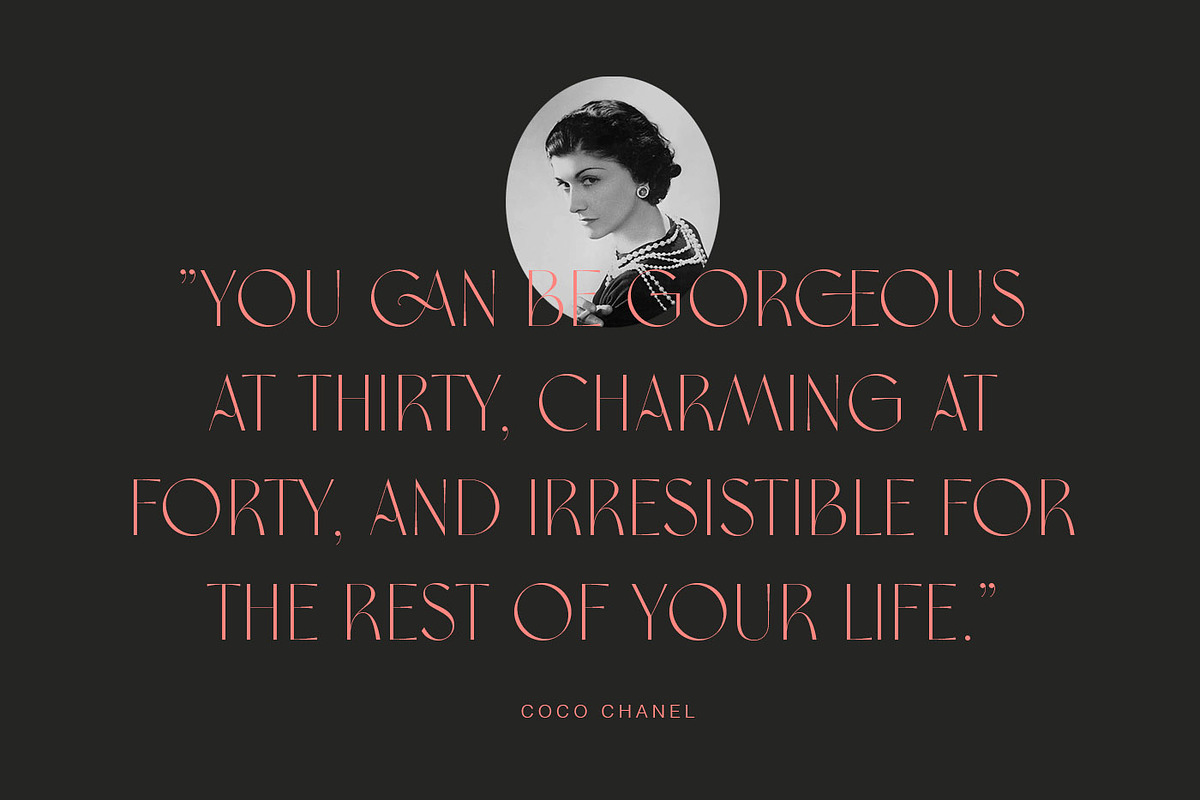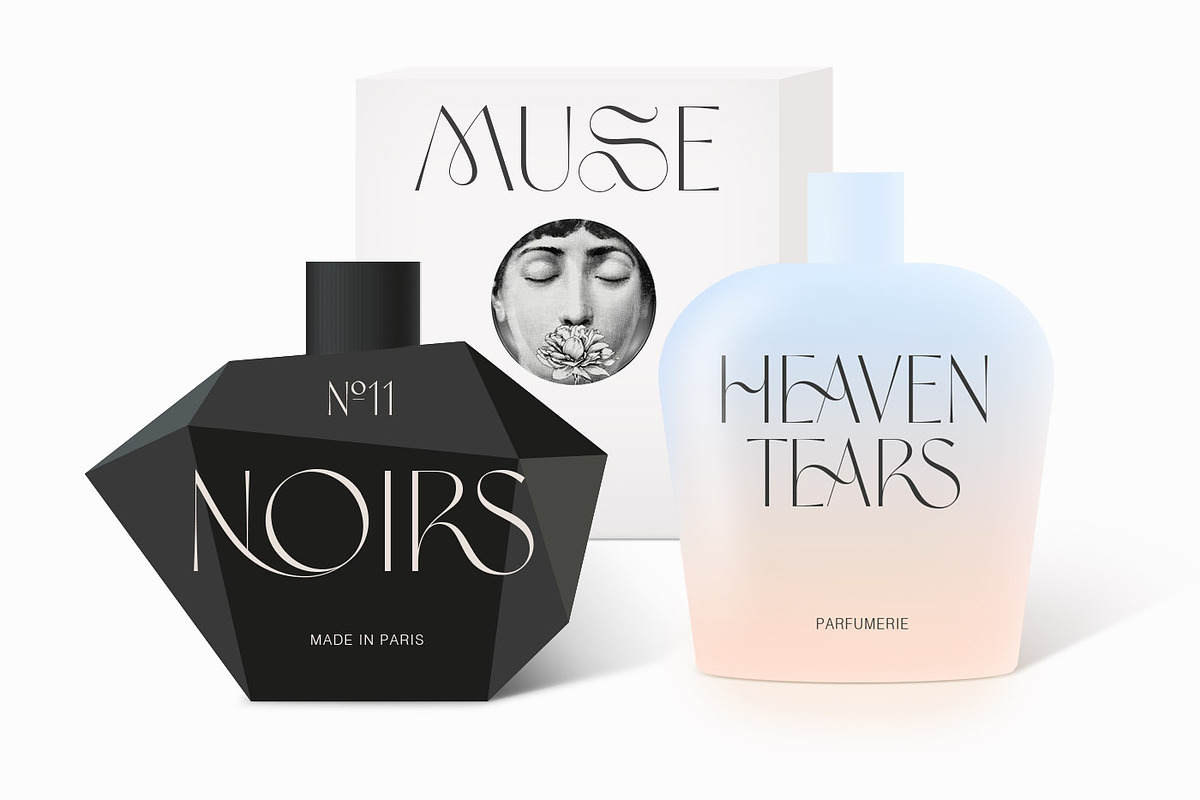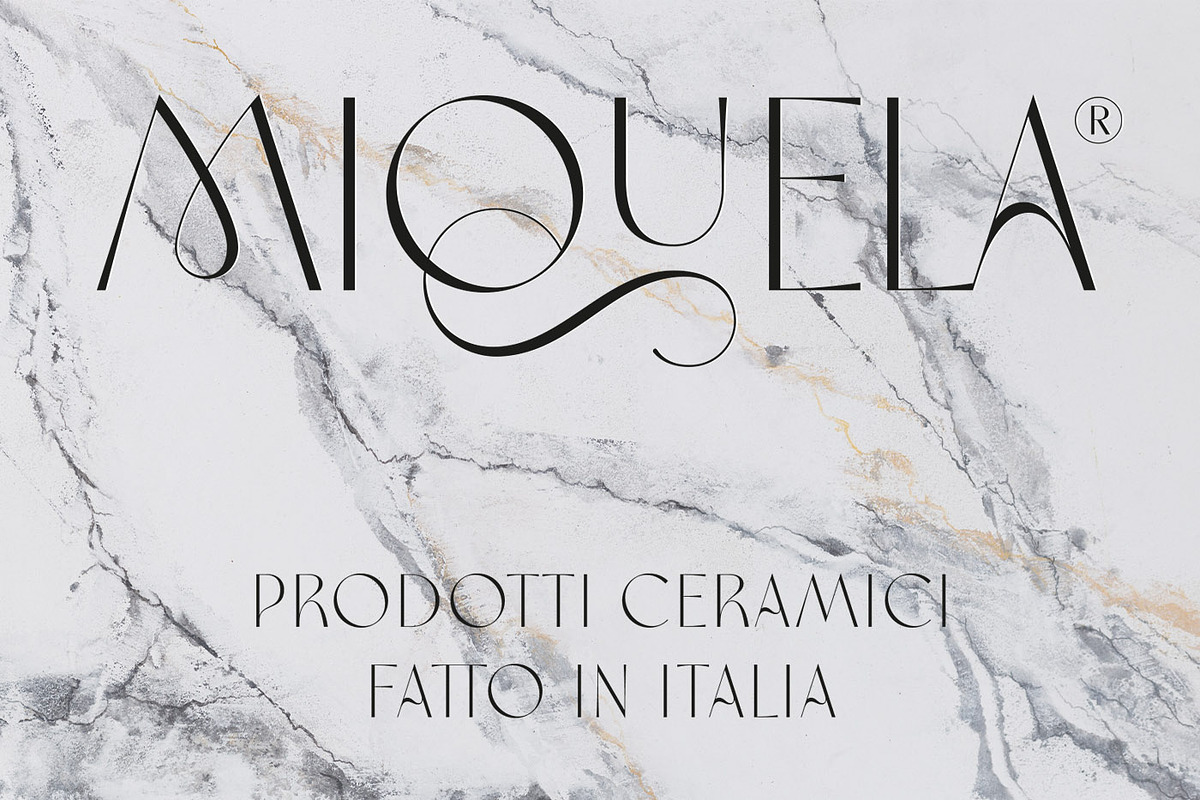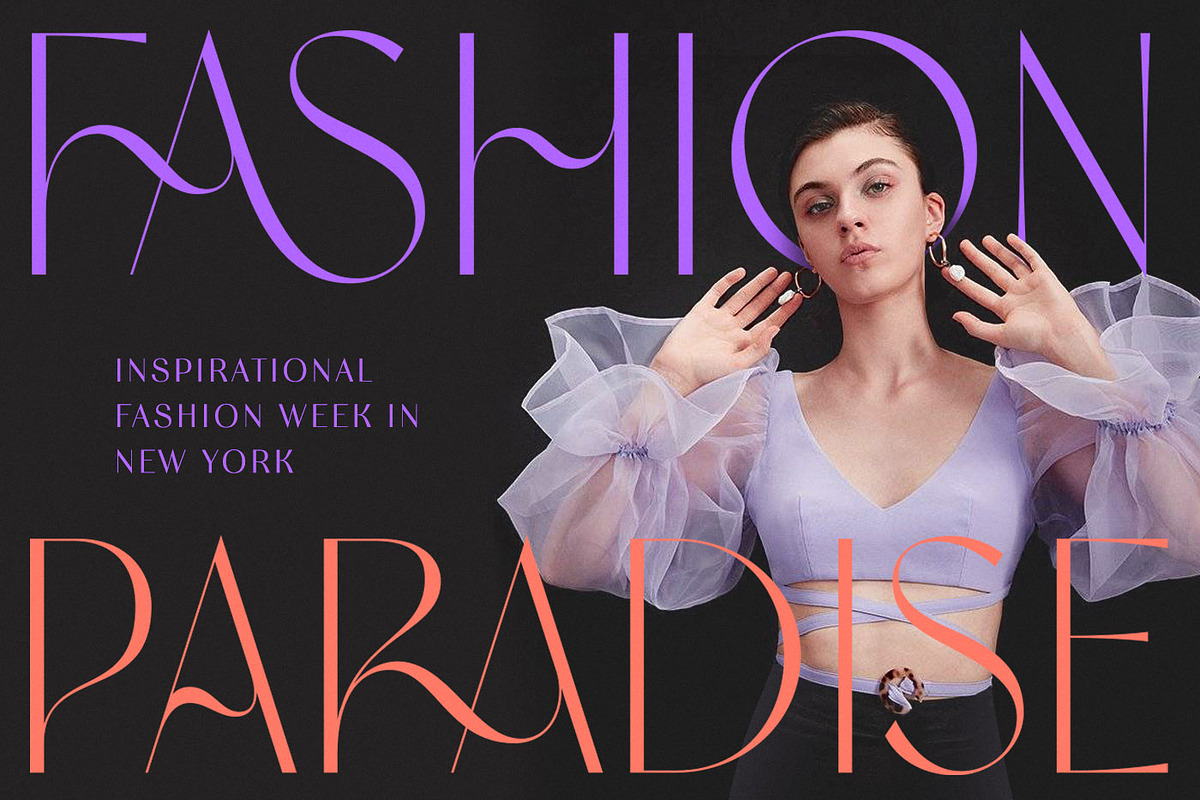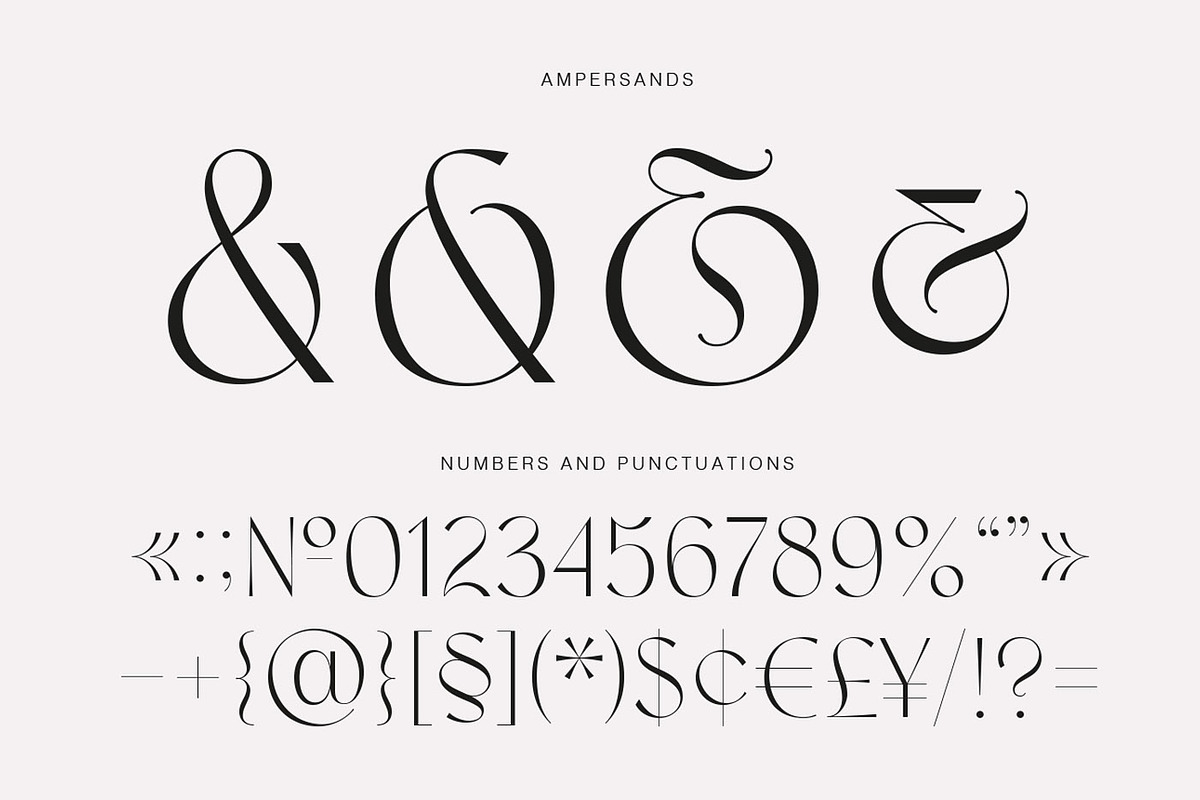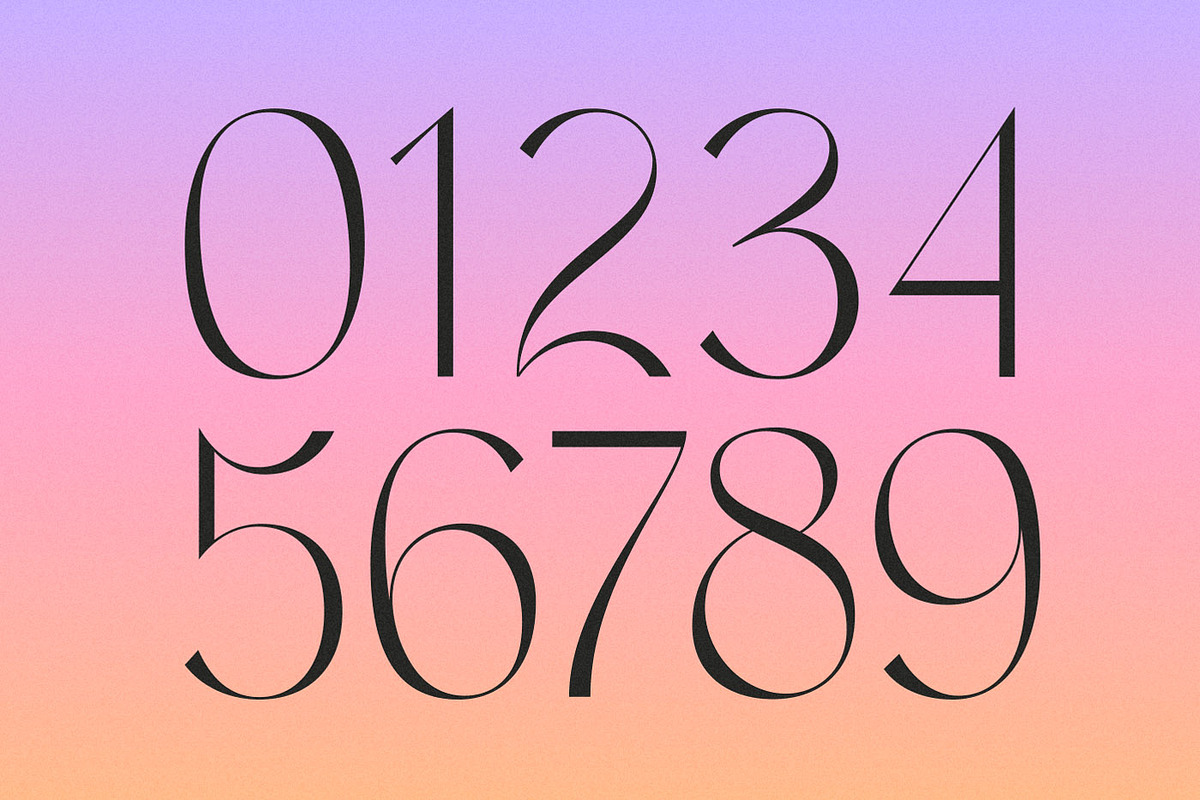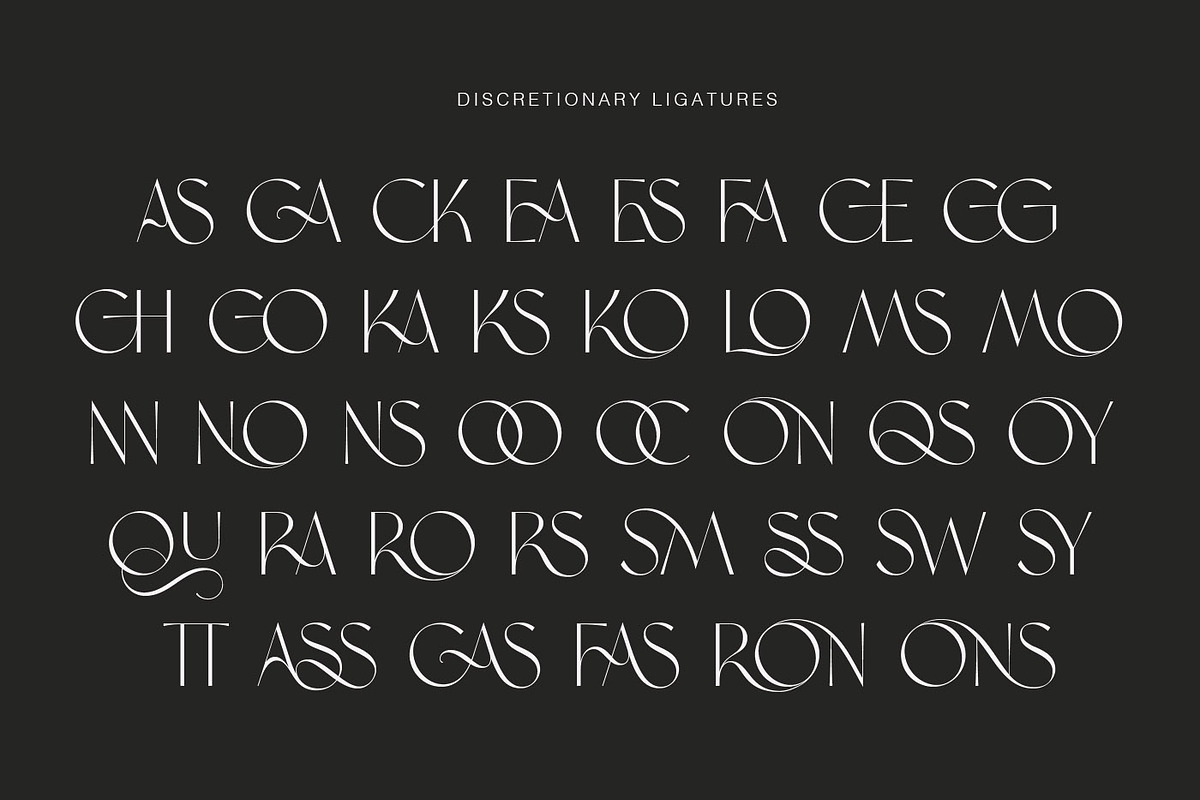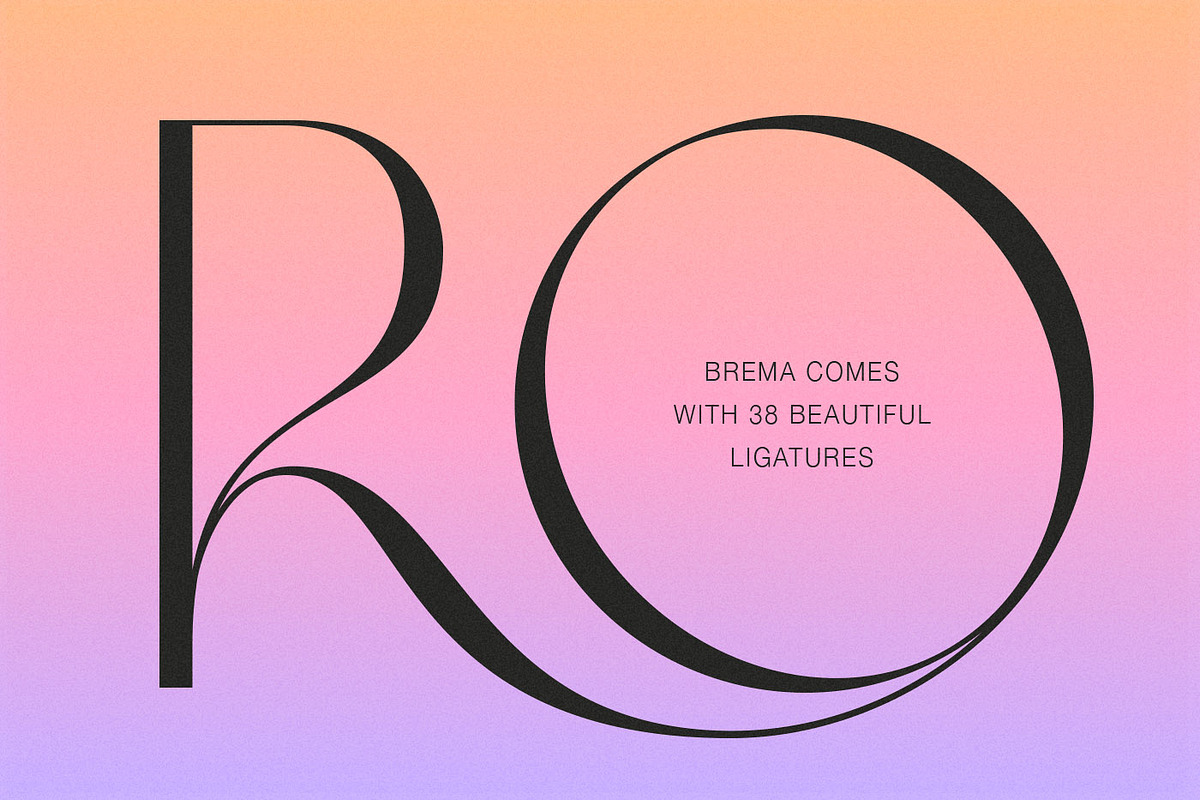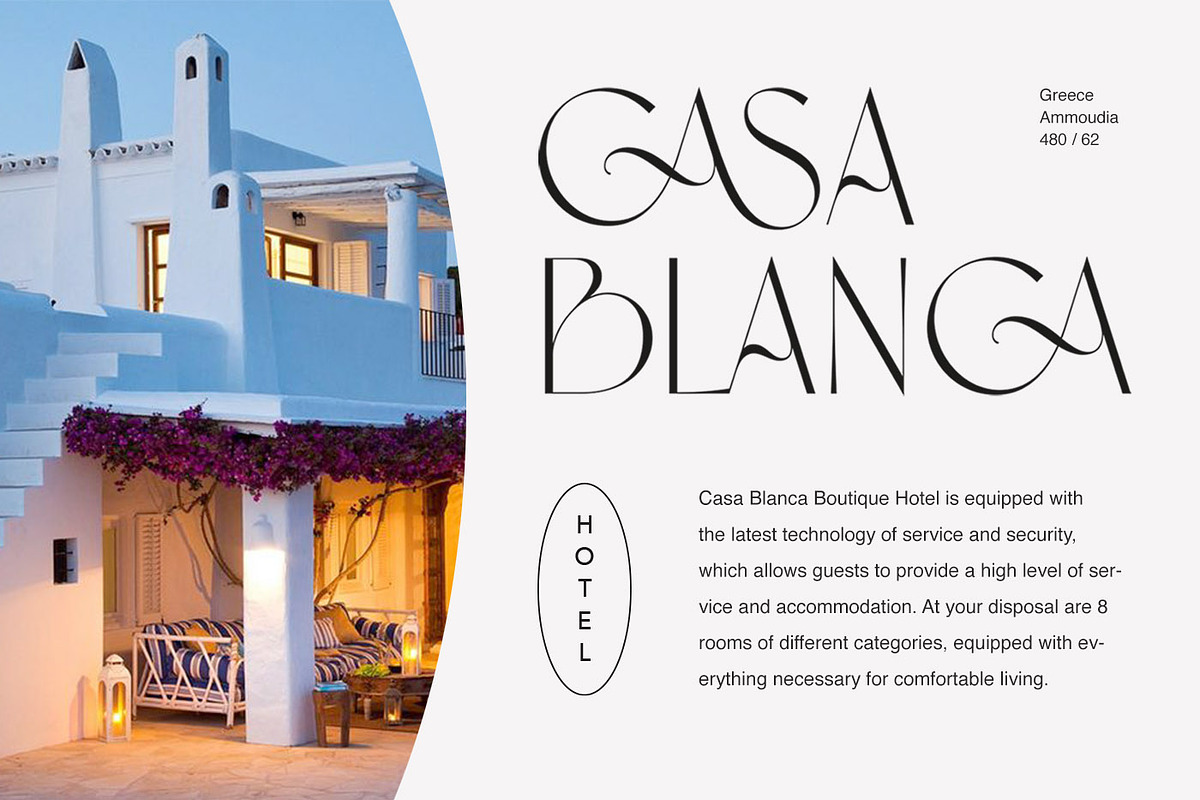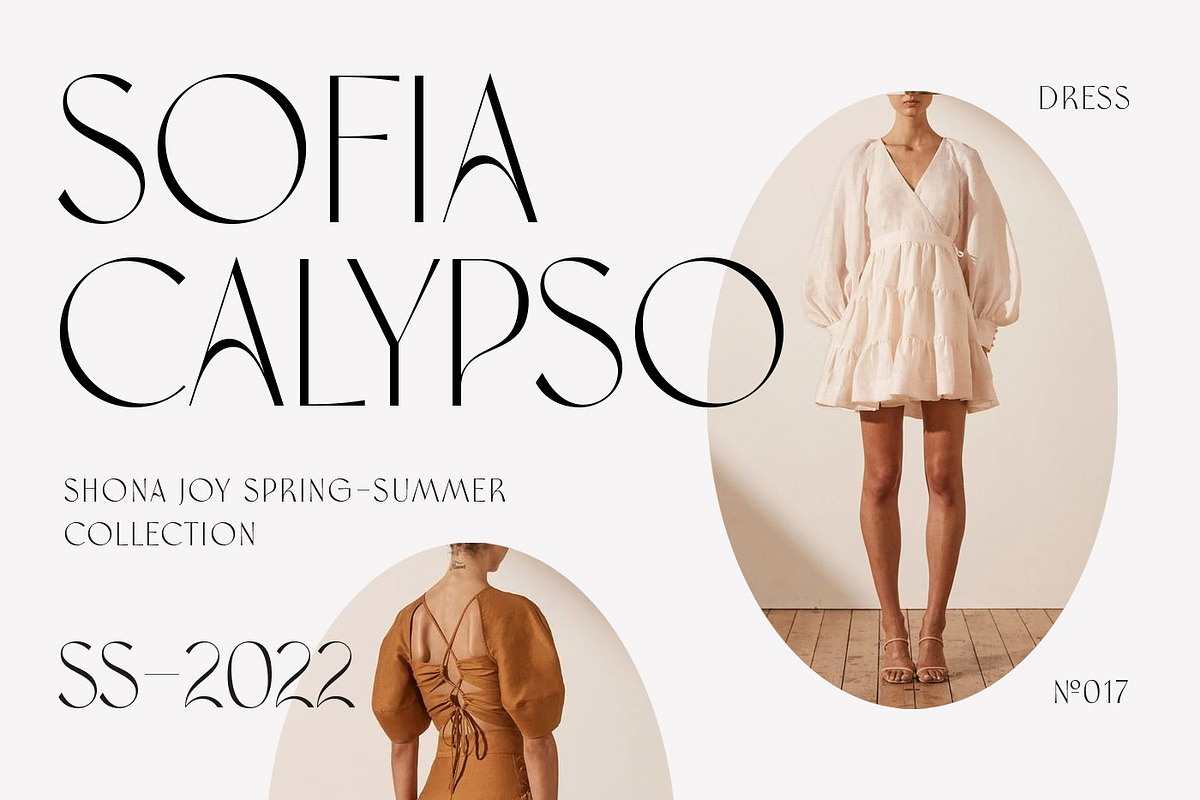
Brema Modern Sans
Brema is a modern sans serif typeface with a light, refined structure. Designed primarily for use at large sizes, it is an excellent choice for web design, fashion magazine titles, luxury perfume and cosmetics branding, logotypes, outdoor advertising, and other contemporary design projects.
OpenType Features Brema includes 38 elegant ligatures and 17 stylistic alternates. To access alternates, simply add the number 2 after a letter (this works with Standard Ligatures enabled). To replace all available characters at once, use the Stylistic Alternates option. Ligatures are accessible by enabling Discretionary Ligatures in the OpenType panel. Please note that these features are available only for lowercase letters.
Brema supports the following languages: Danish, Dutch, English, Estonian, Faroese, Finnish, French, German, Hungarian, Icelandic, Italian, Norwegian, Polish, Portuguese, Slovene, Spanish, Swedish, Turkish.